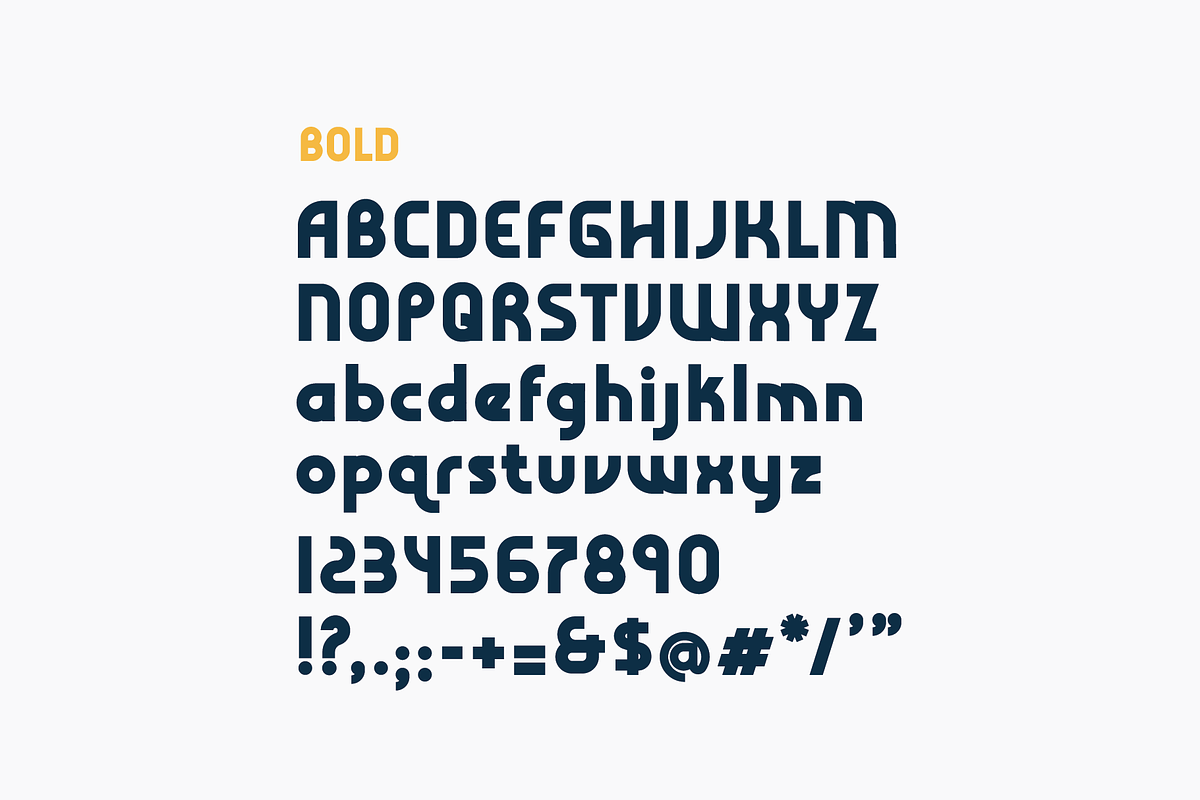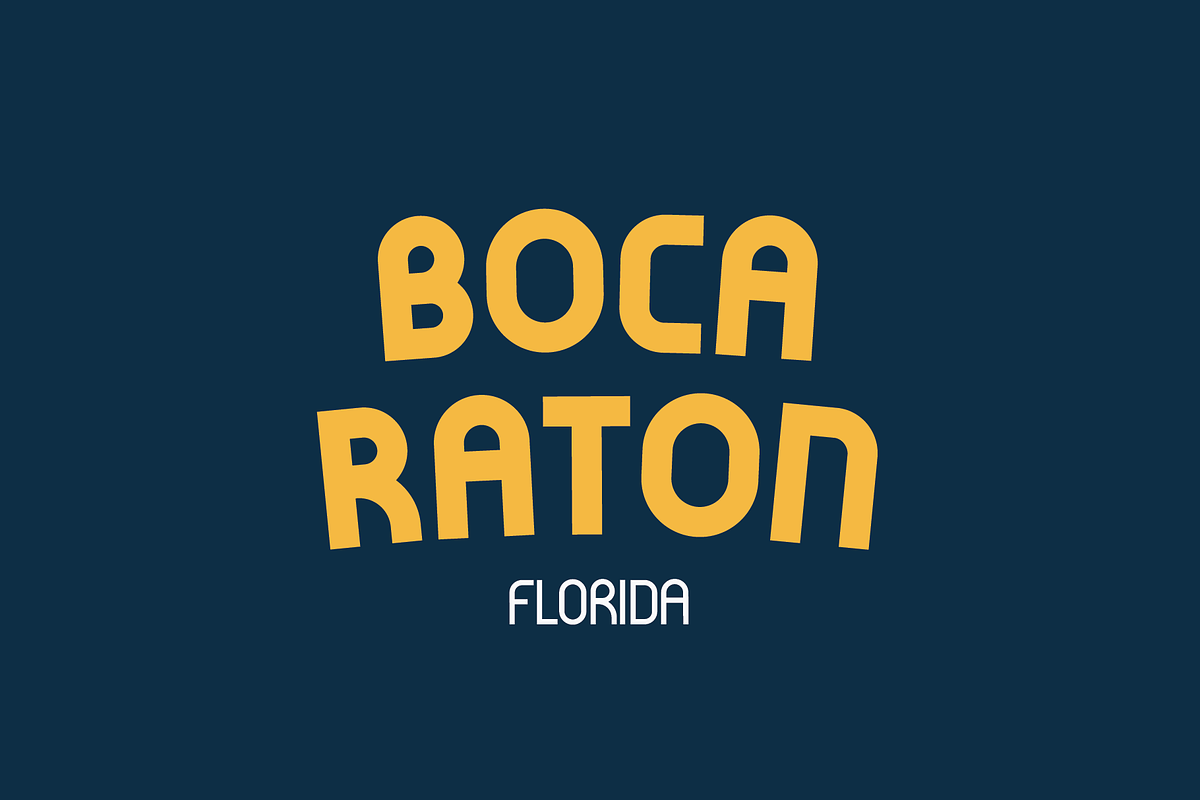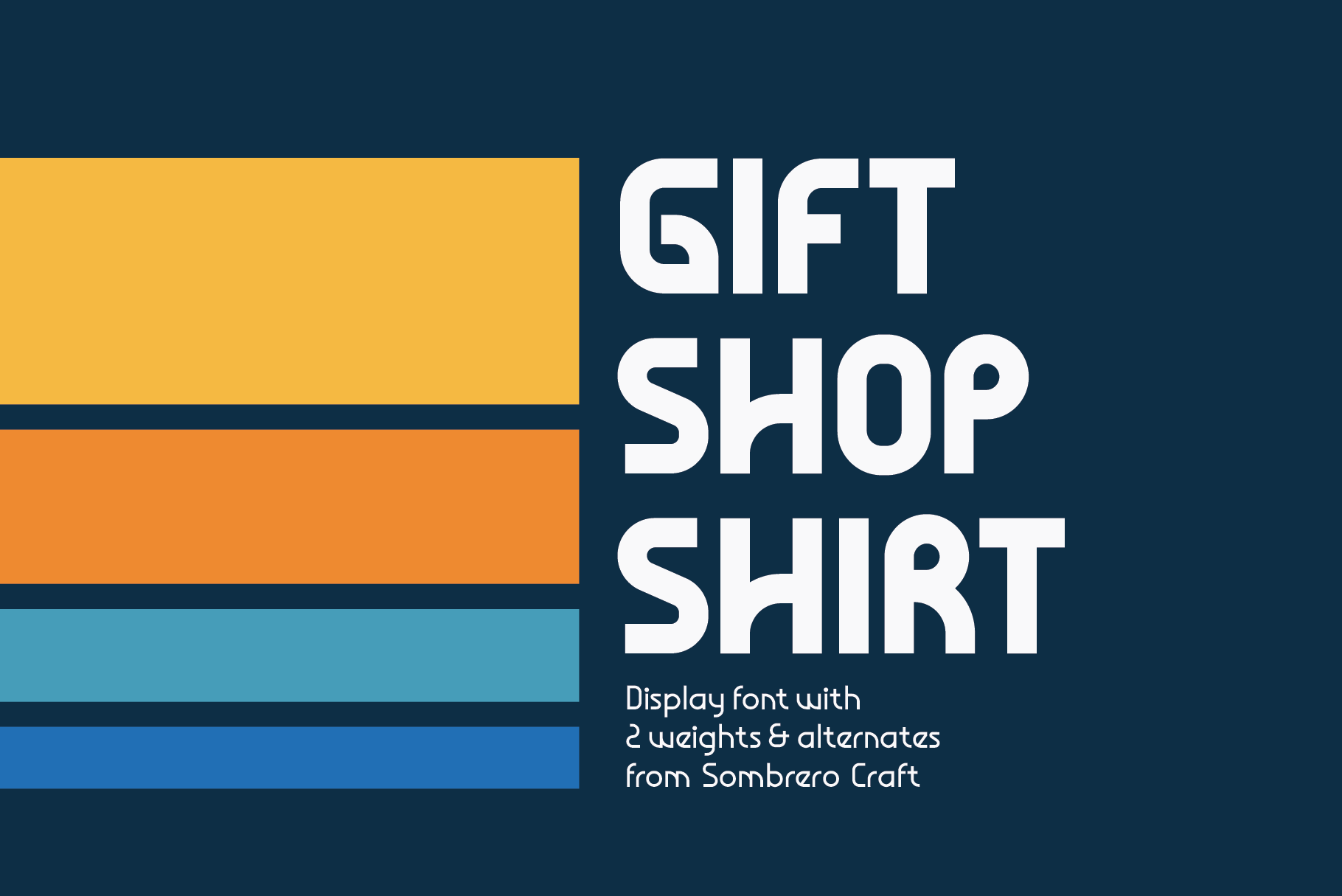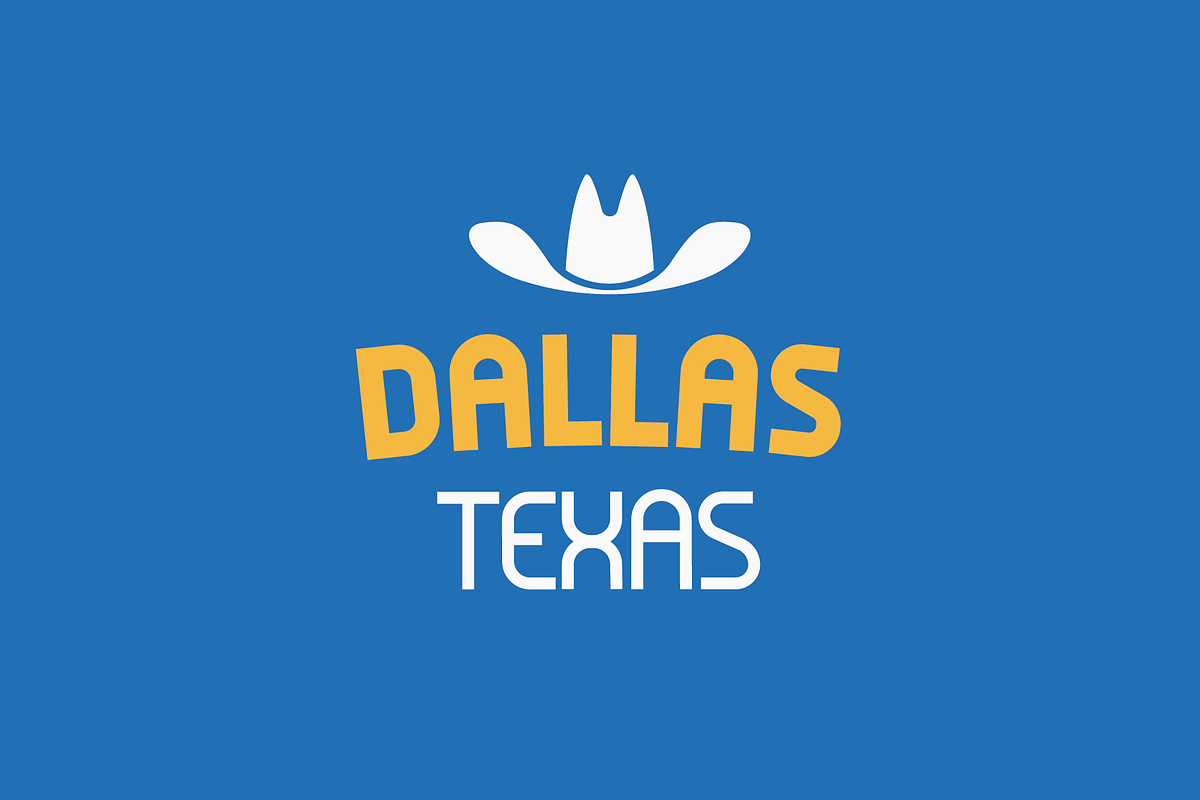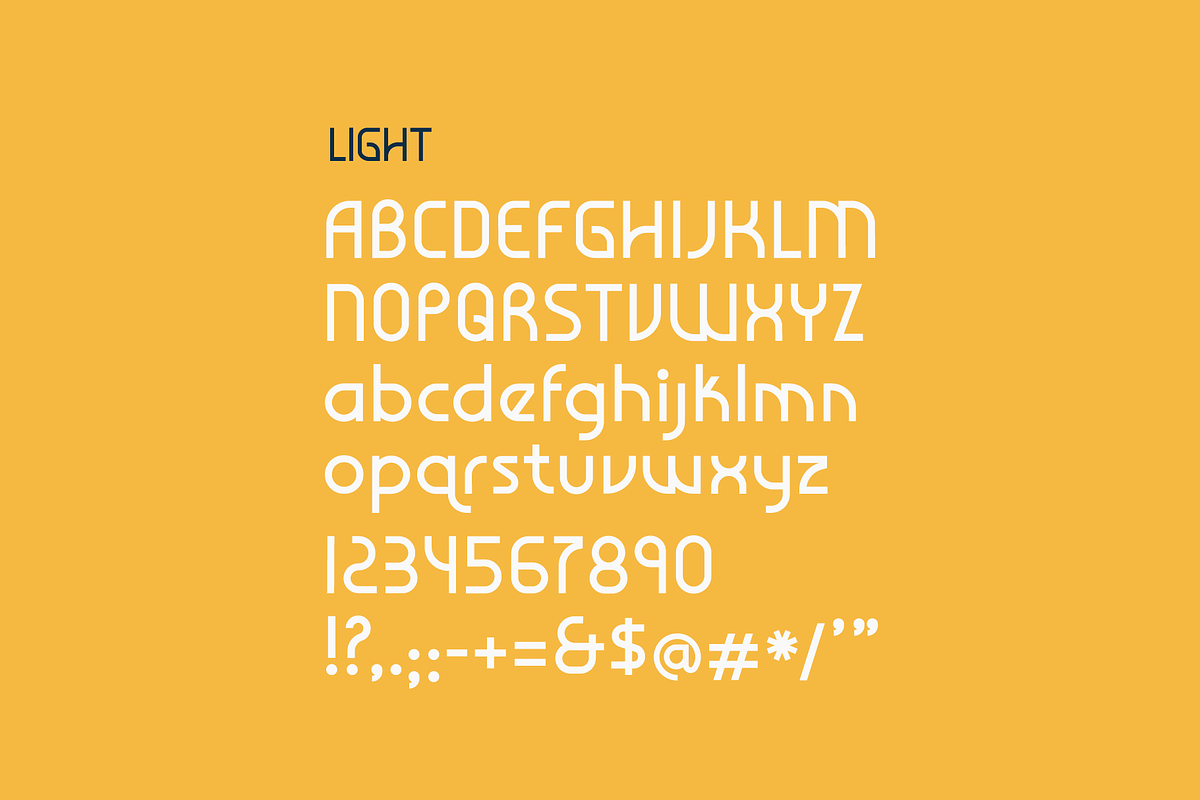
Gift Shop Shirt Display Font
Gift Shop Shirt is a display font inspired by the vacation shirts I had as a kid. Not really decade specific, could be the 80's could be the early 00's, meant to feel retro that's a bit off. Perfect for headlines, branding and logos, and really any project that you would want to add a sans serif font that has a retro kinda quirky feel.